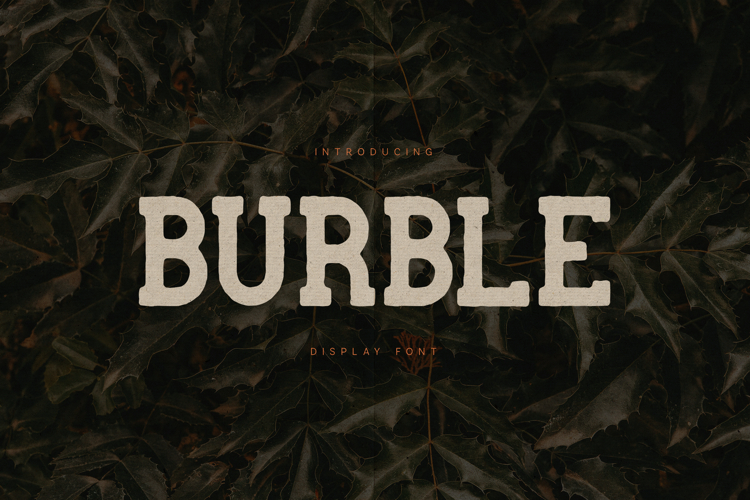
Burble Bold Vintage Slab Display Font
Burble is a bold vintage slab display font with strong letterforms, soft curves, and a timeless, handcrafted feel. Designed to balance power and warmth, it delivers a confident presence while remaining approachable and highly readable.
Inspired by classic print typography and modern branding needs, Burble works beautifully for posters, logos, packaging, headlines, apparel, editorial layouts, and storytelling visuals. Its solid structure and subtle texture give it character without overpowering the design.
The font includes uppercase characters, numerals, punctuation, and extensive multilingual support, making it a reliable choice for both creative and professional projects across print and digital platforms.